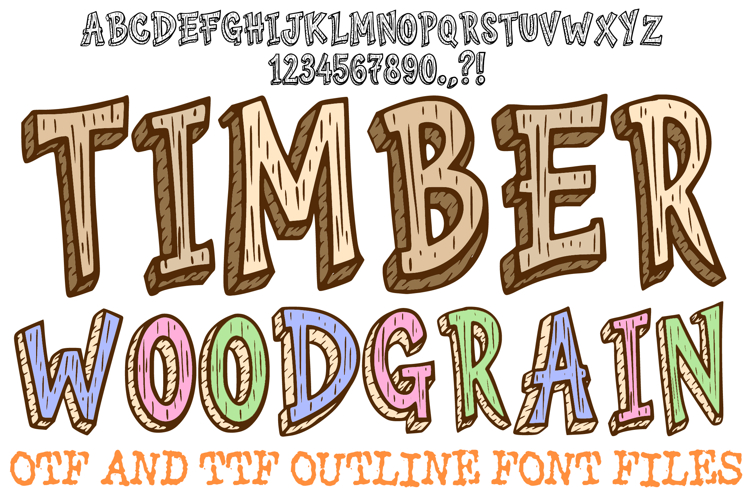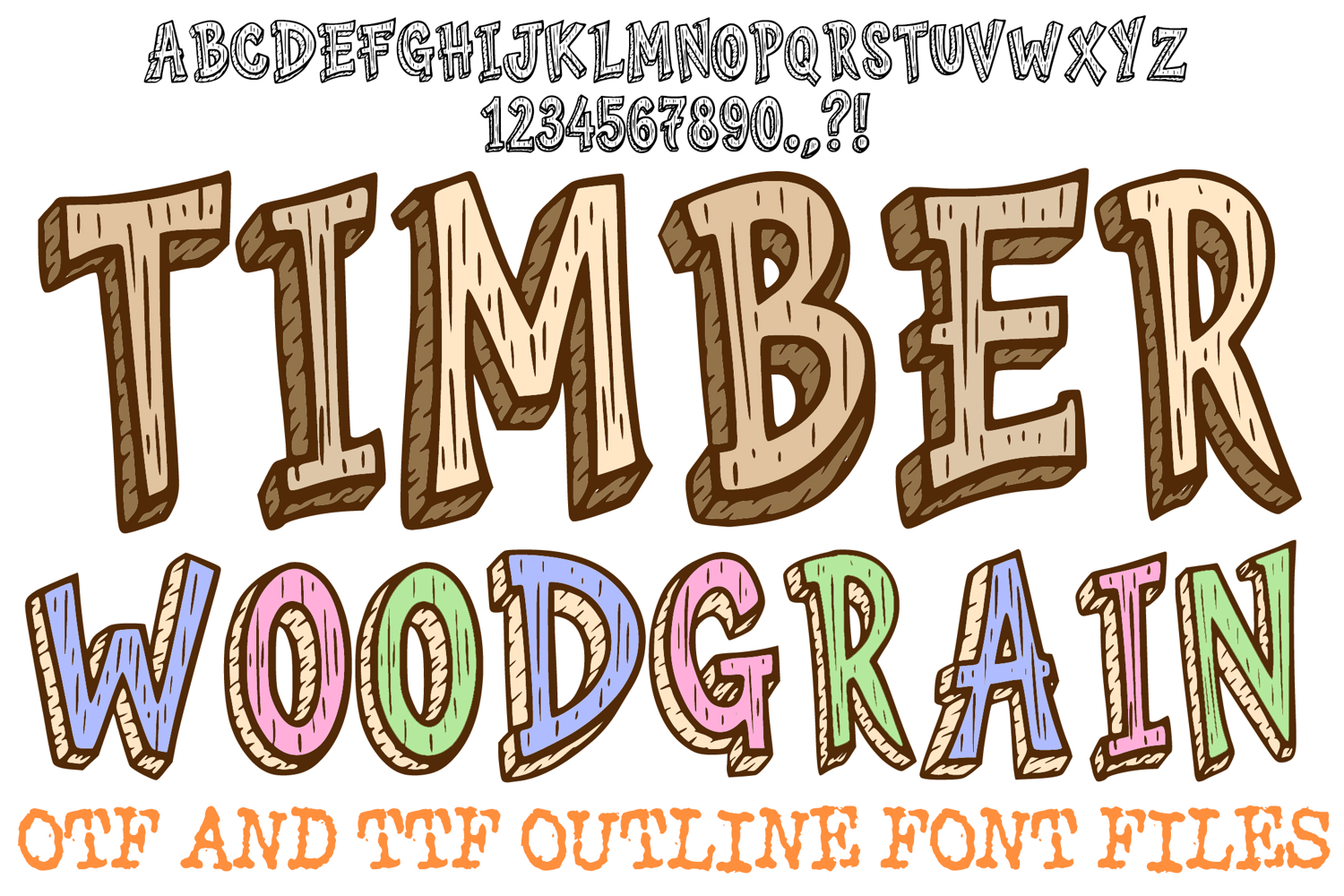
Timber Woodgrain Doodle Font Lettering Wood Log ABC OTF
Bring the rugged beauty of the forest to your digital workshop with the Timber Woodgrain Doodle Font! This hand-drawn display alphabet features chunky, 3D block characters meticulously textured with organic woodgrain patterns, swirling knots, and rustic bark details. It is an essential asset for woodworking shop branding, forest-themed nursery decor, outdoor adventure posters, and whimsical "cottagecore" digital scrapbooking.
Each letter is designed with a heavy, shadowed silhouette to give your text a physical, carved-from-timber presence that pops off the page. Whether you are creating a custom sign for a mountain cabin or designing playful stickers for a nature-inspired journal, the Timber Woodgrain Doodle Font offers a warm, artisan aesthetic that is both professional and playful.
Authentic Woodgrain Texture: Every letter and number is filled with unique rings and grain lines for a genuine log look.
Heavy 3D Silhouette: The bold, chunky outlines and deep shadows make each character pop with professional dimension.